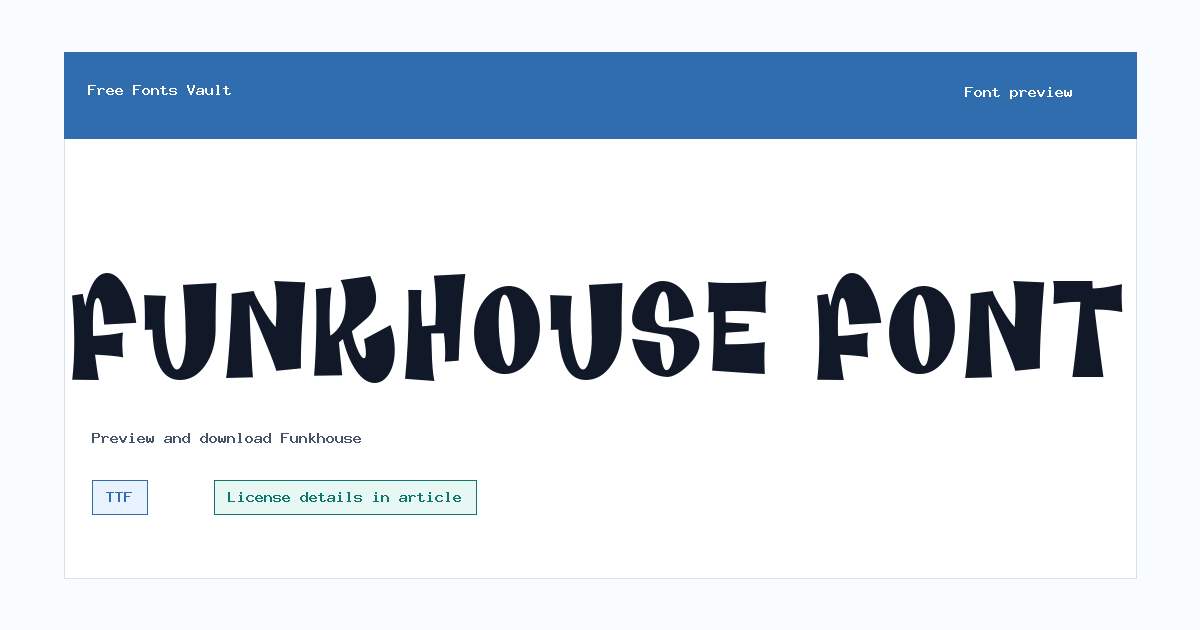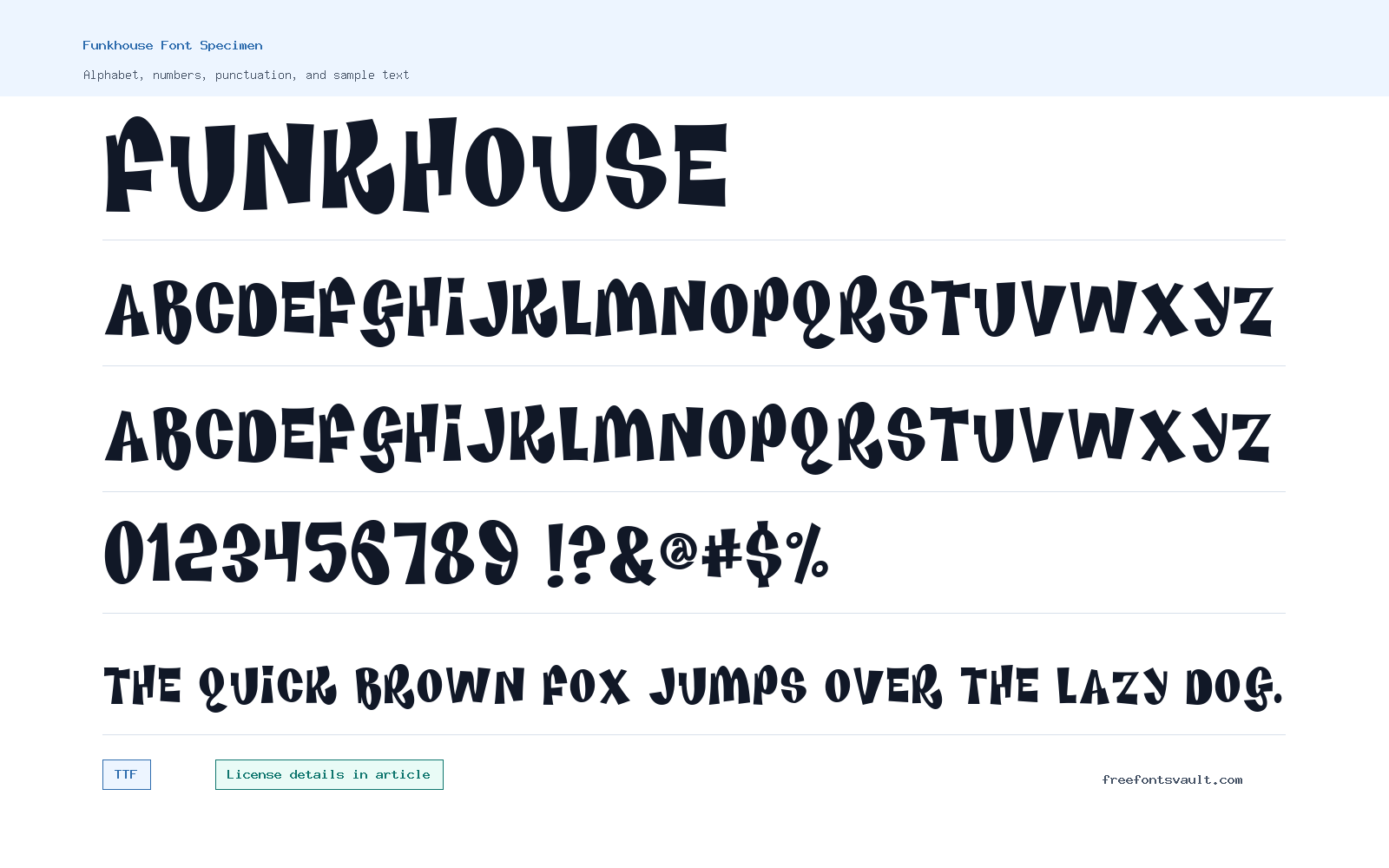
Funkhouse
- Foundry House Industries-Brand Design Co.
Funkhouse font.
Funkhouse is a regular TTF display font with a bold, playful, retro-leaning tone. It is useful when a word or short phrase needs personality immediately, not when a layout needs quiet paragraph text.
About Funkhouse
Funkhouse has the kind of display energy that suits posters, flyers, badges, labels, and event titles. It should be treated as a visual accent: a few words can set the mood, while long paragraphs will usually need a simpler companion font. Test it at the size you plan to use, because display fonts often depend on scale and spacing.
Use the preview to try all-caps words, short title-case phrases, numbers, punctuation, and brand-style labels. If the lettering feels too dense, increase spacing or reduce the amount of text. The font can bring a lively retro flavor to a design, but it works best when the surrounding layout gives it enough room.
- Display style suited to bold short text and poster-like layouts.
- Retro-friendly tone for labels, badges, and event graphics.
- Posters, flyers, and event title graphics.
- Labels, stickers, badges, and short promotional text.
- Retro or playful display layouts with limited wording.
- Large headlines where spacing and character shape can be reviewed clearly.
Use Funkhouse for short, high-visibility text. Pair it with a plain serif or sans serif for body copy, and preview your exact words before using it in a final layout. For cleaner results, give the font one main focal point in the layout instead of using it across every text element.
What type of font is Funkhouse?
Funkhouse is best treated as a display font for short text such as titles, posters, labels, and logo-style mockups.
Is Funkhouse good for body text?
No. It is better for short display text. Use a simpler companion font for paragraphs and captions.
What should I test first?
Test short titles, all-caps words, numbers, punctuation, and final size so you can judge spacing and readability.